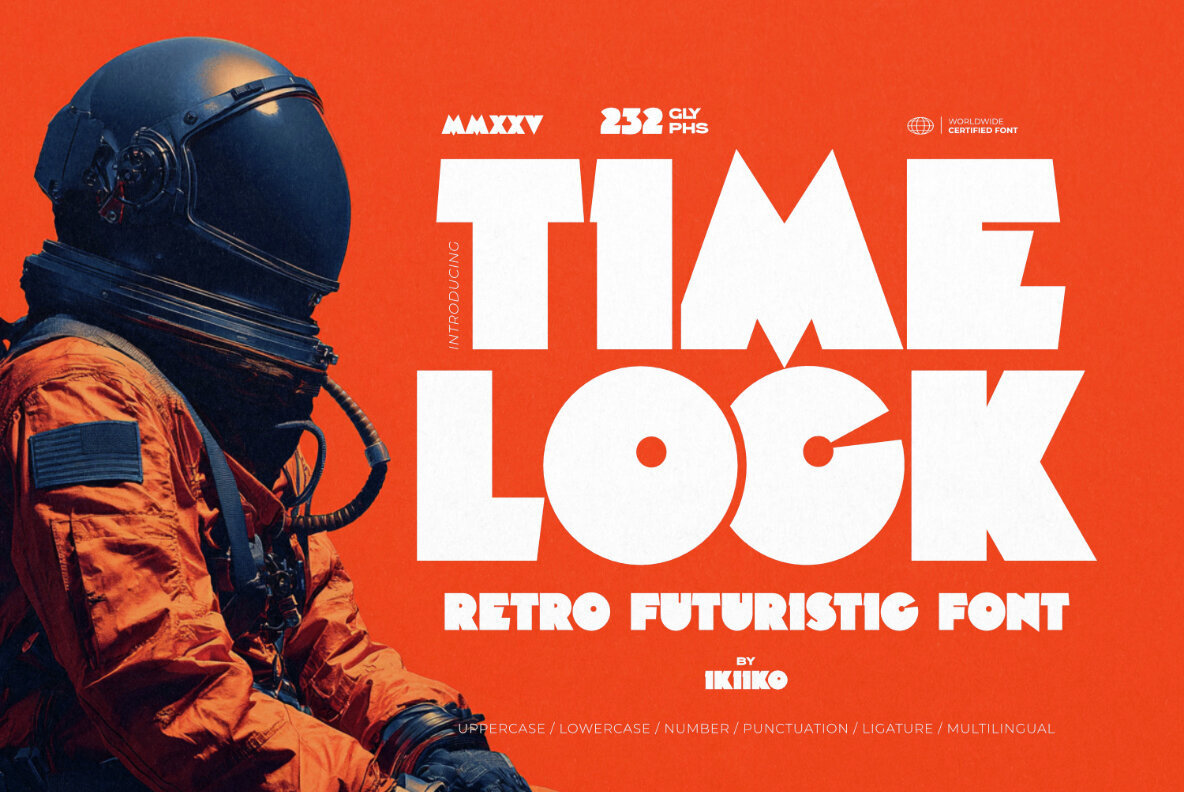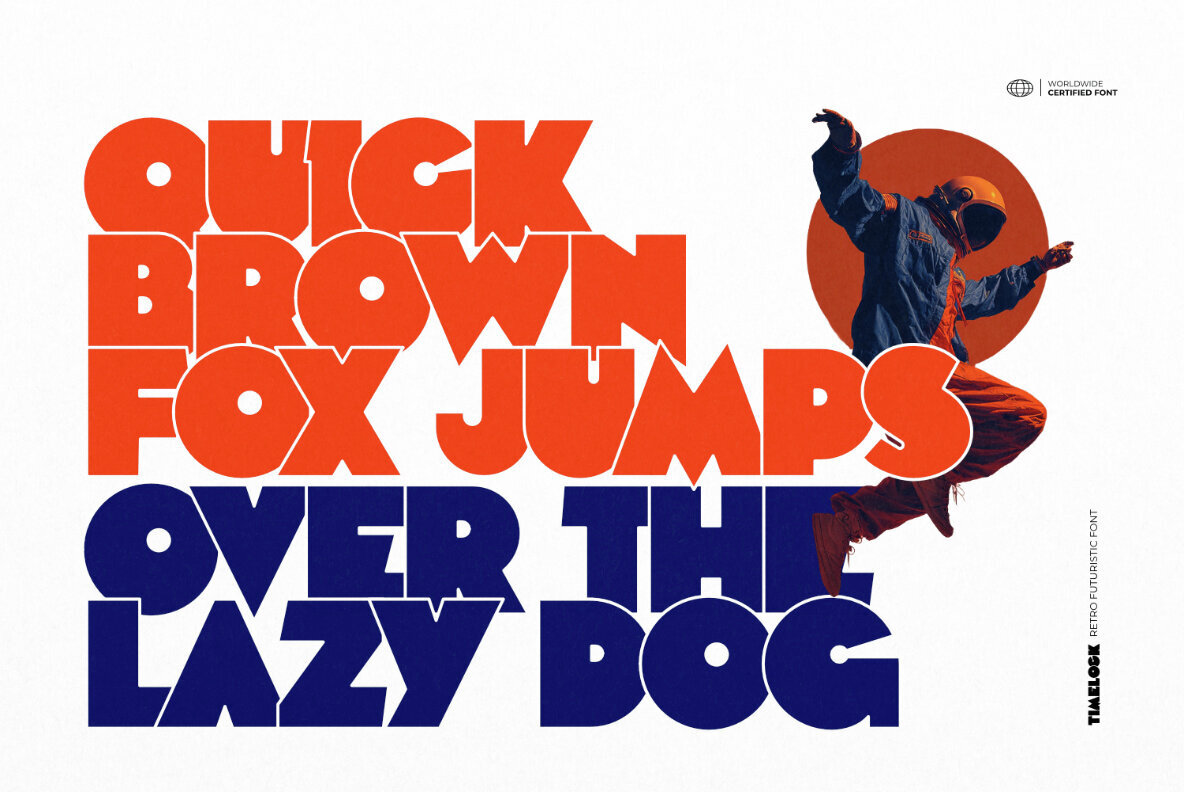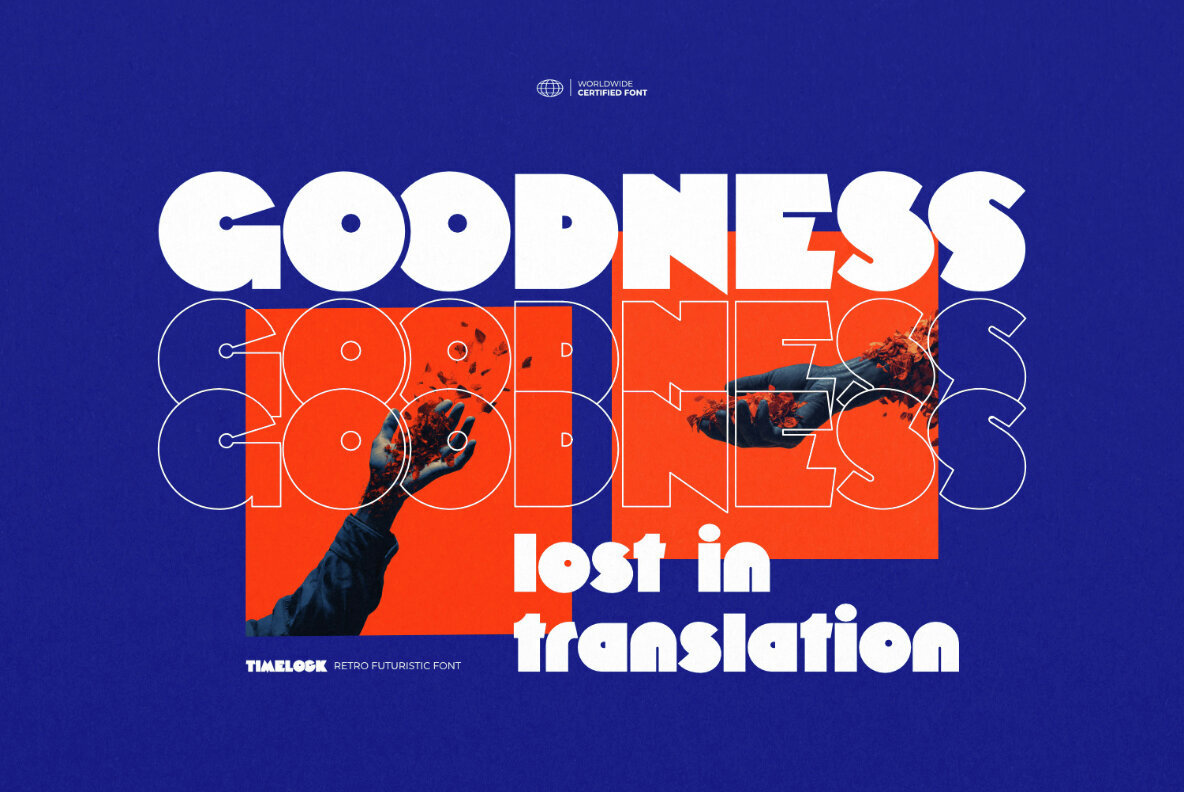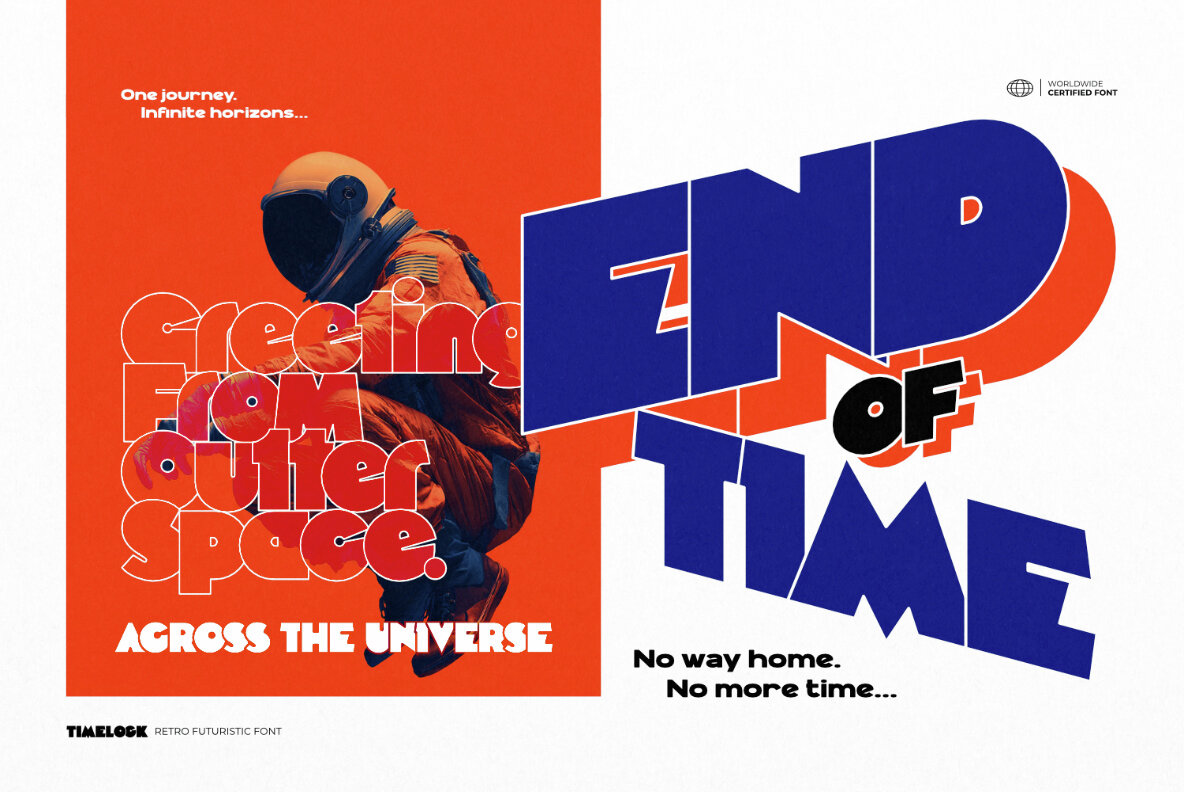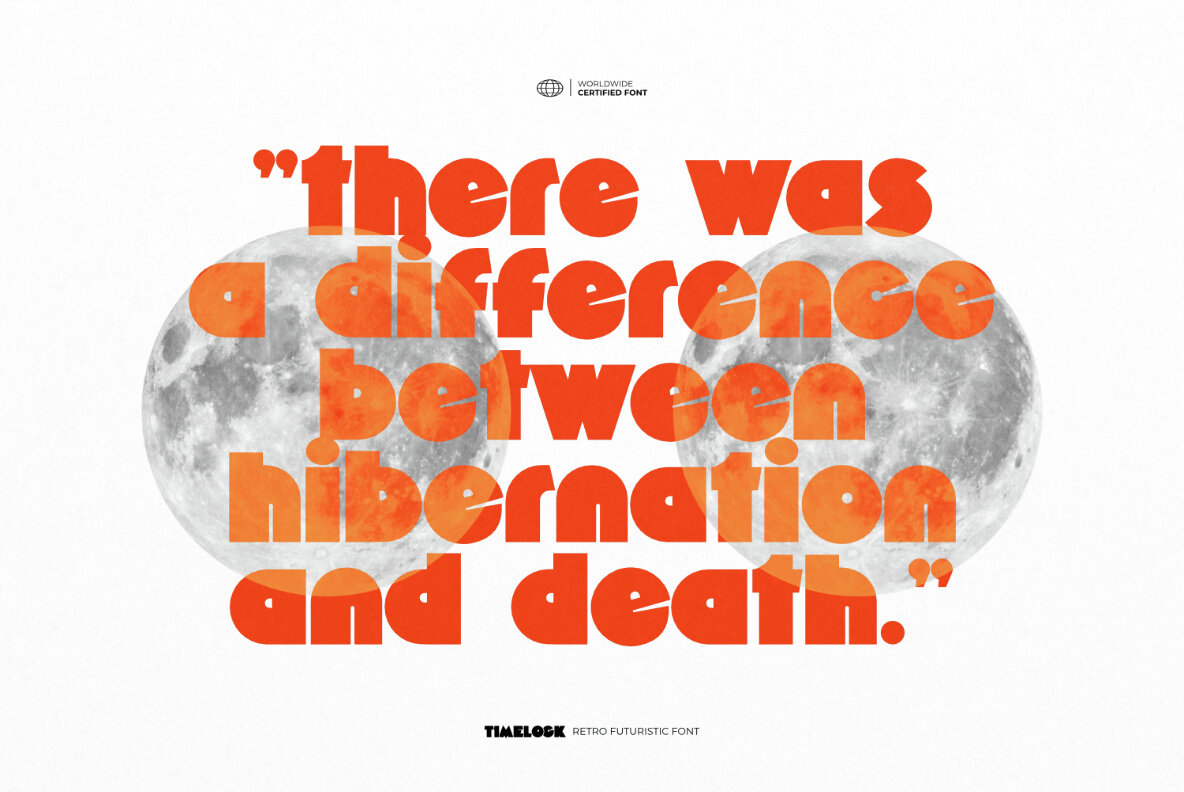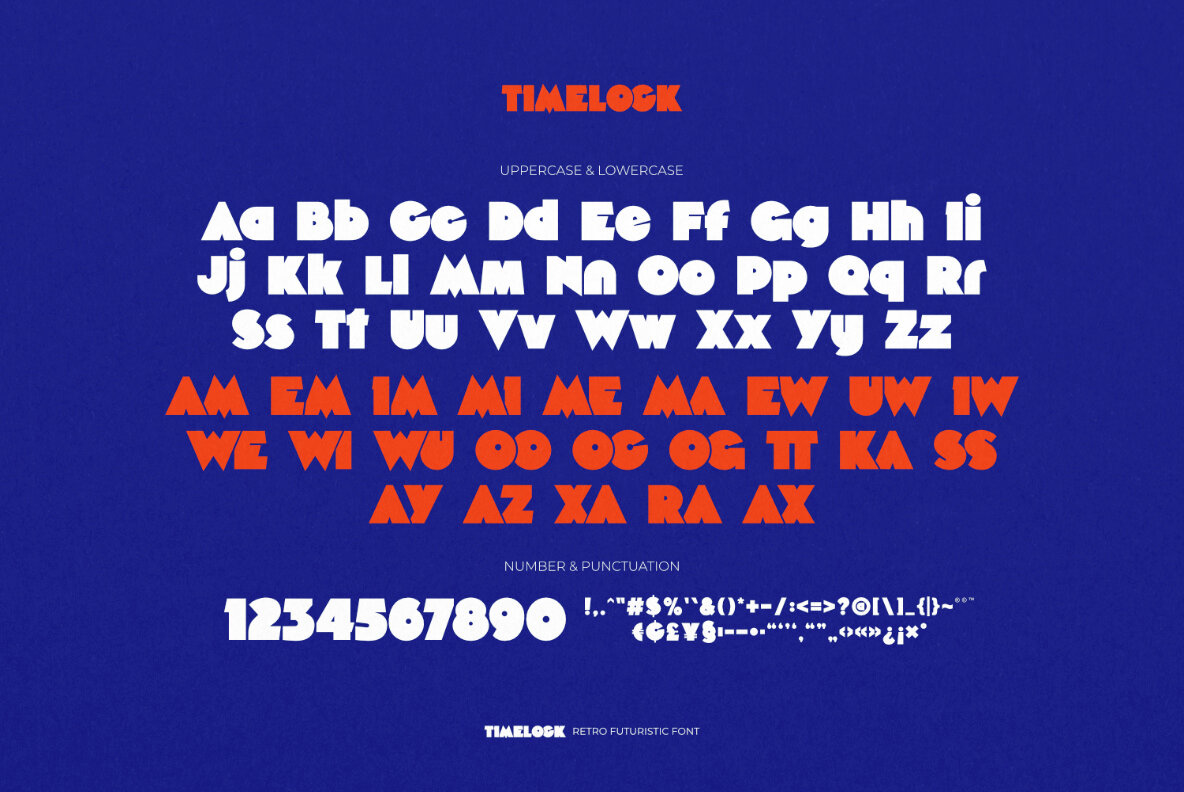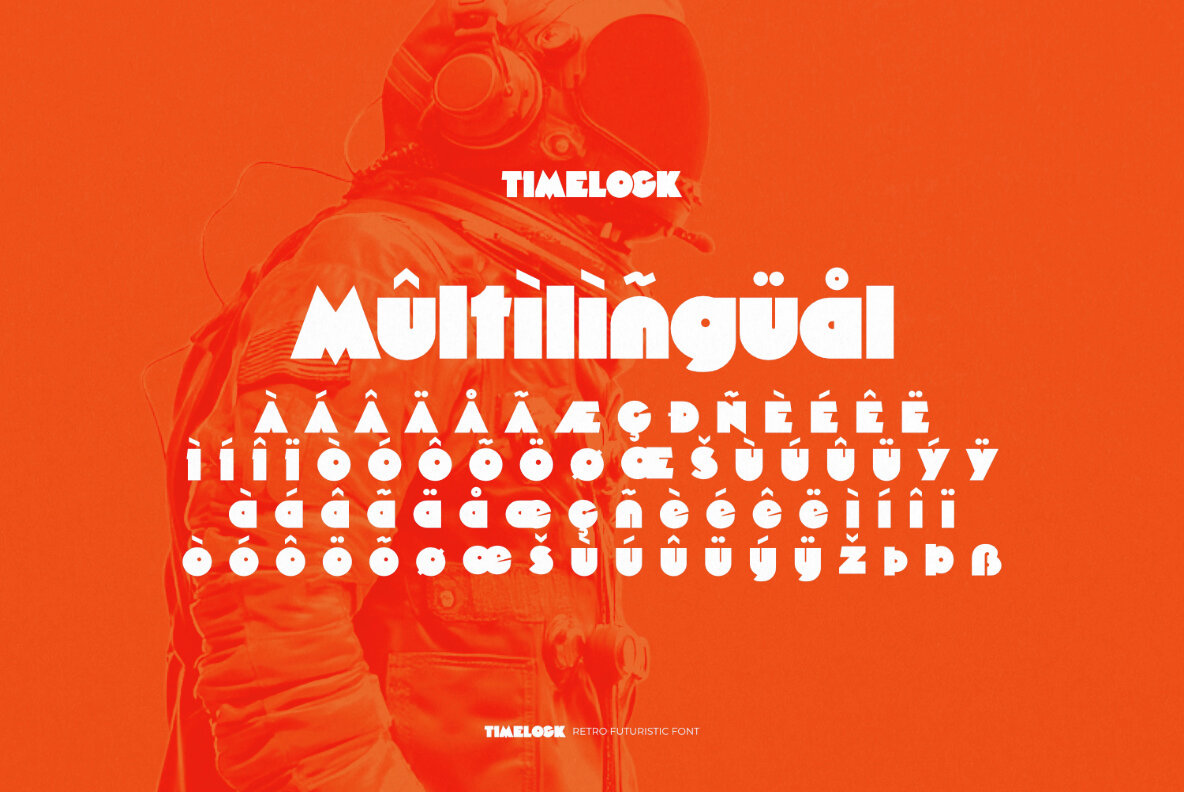
Timelock Font
Timelock
Unveiling a typographical journey through time, Timelock is a bold, retro-futuristic font that encapsulates the vibrant essence of the 1980s with a visionary edge. Designed for those who dare to dream and create, this chunky sans serif typeface marries geometric forms with striking grooves, offering a harmonious blend of nostalgic flair and futuristic appeal. With a focus on editorial sophistication, Timelock is tailored for compelling headlines, chic advertising, and stylish retro branding. The robust curves and sleek lines resonate with Retrowave energy, making each word appear perfectly suited for neon-lit posters, arcade game screens, or the covers of vintage sci-fi magazines. Whether for digital projects or print layouts, Timelock serves as a portal to an era where vibrant vibes and futuristic charm intersect. Ideal for channeling synthwave aesthetics or reimagining bold retro styles, this font is crafted to make a vivid statement.Timelock: Retro Futuristic Typeface with a Bold Attitude